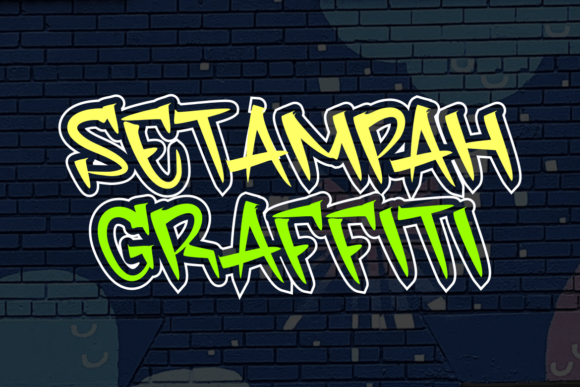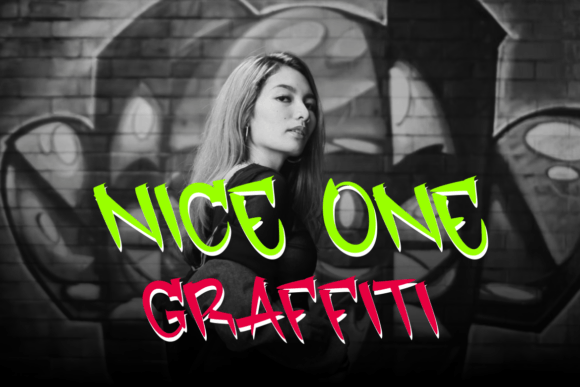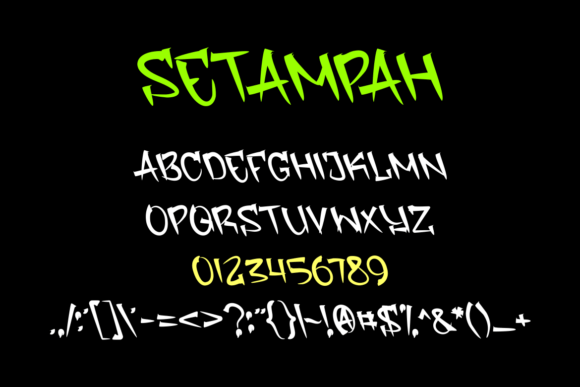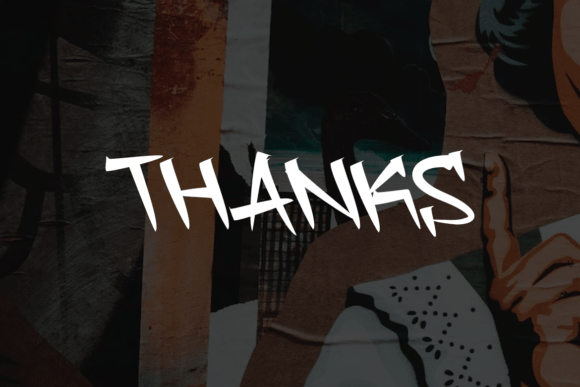
Introduction to Setampah Font
Have you ever found yourself in a creative frenzy, surrounded by paint, markers, and a blank wall, eager to unleash your artistic side? That’s exactly the moment when the Setampah Font comes to life. This unique, graffiti-style handwritten font is designed to give your text an authentic street art feel, perfect for adding a touch of edginess to your design projects.
With three versions to choose from – solid, outline, and shadow – you can mix and match to create a high-quality look that’s sure to stand out. The outline version, in particular, is a game-changer for craft designs, with its fixed kerning allowing for seamless single-text arrangements. Whether you’re working on a creative project or simply need a design resource, the Setampah Font is an invaluable addition to your toolkit.
Key Features of Setampah Font
- Unique Script Design: Setampah Font offers a distinctive script style ideal for creative projects, providing a stylish and elegant touch.
- High-Quality Design: This font is a valuable design resource, boasting high-quality graphics and precise typography.
- Transparent Background: The font’s transparent background makes it easy to overlay on various backgrounds, enhancing its versatility.
- Resolution: The font is designed with a high resolution, allowing for clear and crisp typography in various sizes and applications.
- Perfect for Creative Projects: Setampah Font is a great choice for designers working on creative projects, such as branding, advertising, and editorial content.
Honest Review: Setampah Font
As a designer, I’m always on the lookout for high-quality design resources to elevate my creative projects. Recently, I came across the Setampah Font, and I’m excited to share my honest review.
- ✨ Unique and quirky design style that adds a touch of personality to any project
- ✨ High quality and crisp typography that’s perfect for digital and print applications
- ✨ Transparent background makes it easy to combine with other design elements
- ⚠️ Limited character set and font styles may not be suitable for extensive text-based projects
Overall, I’m impressed with the Setampah Font’s unique design and high quality. While it may not be the most versatile font, it’s perfect for designers who want to add a touch of personality to their creative projects. With a free download and transparent background, it’s a great addition to any design resource library.
Setampah Font is perfect for:
- Creating eye-catching logos and branding materials
- Designing unique graphics and illustrations
- Adding a personal touch to presentations and documents
For optimal results, use Setampah Font with a transparent background to create a seamless design experience. Experiment with different font sizes and styles to achieve the desired look.